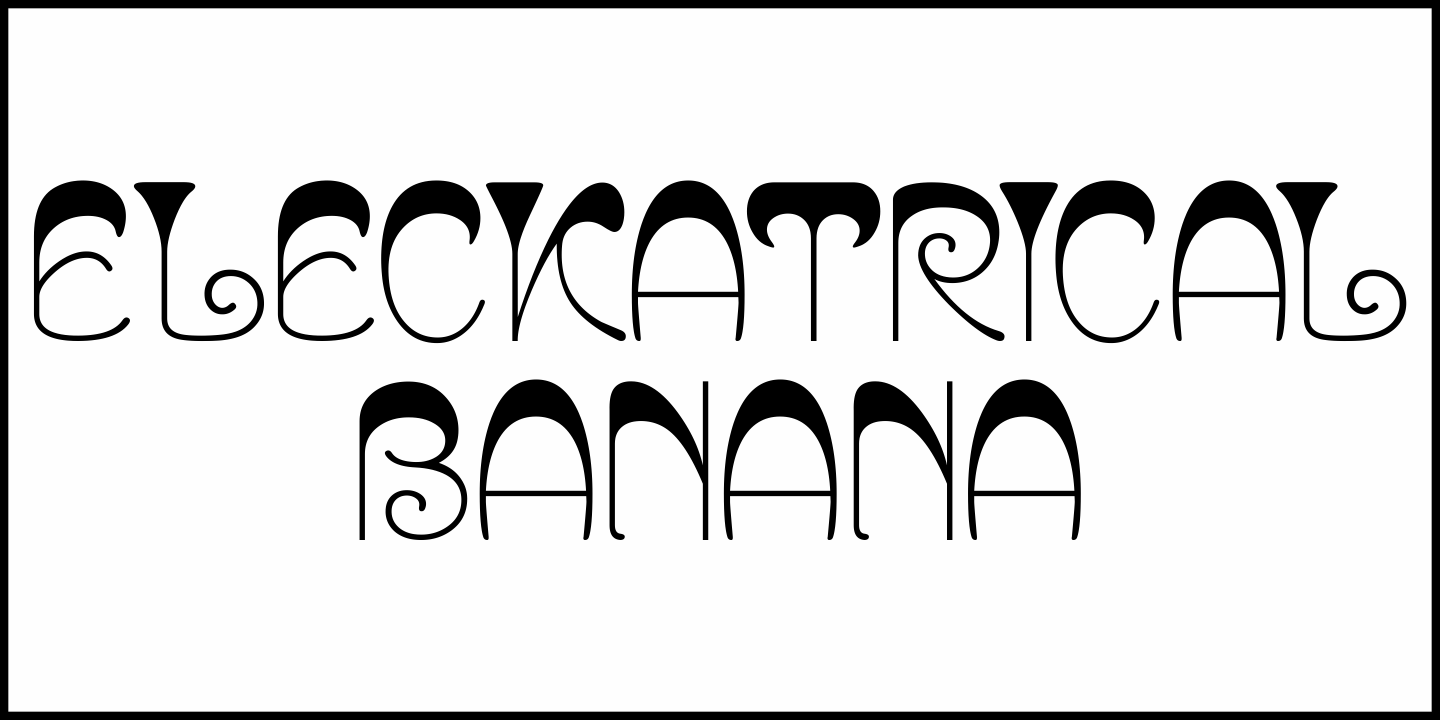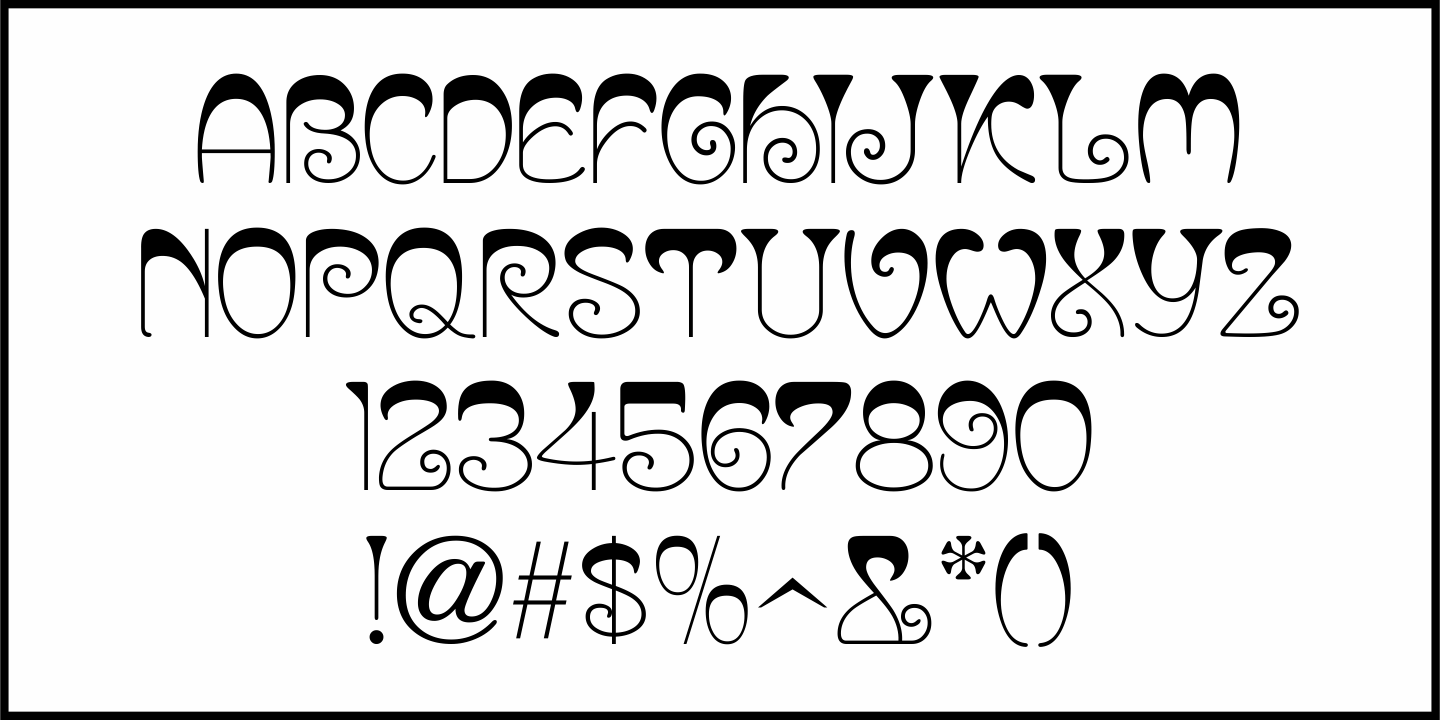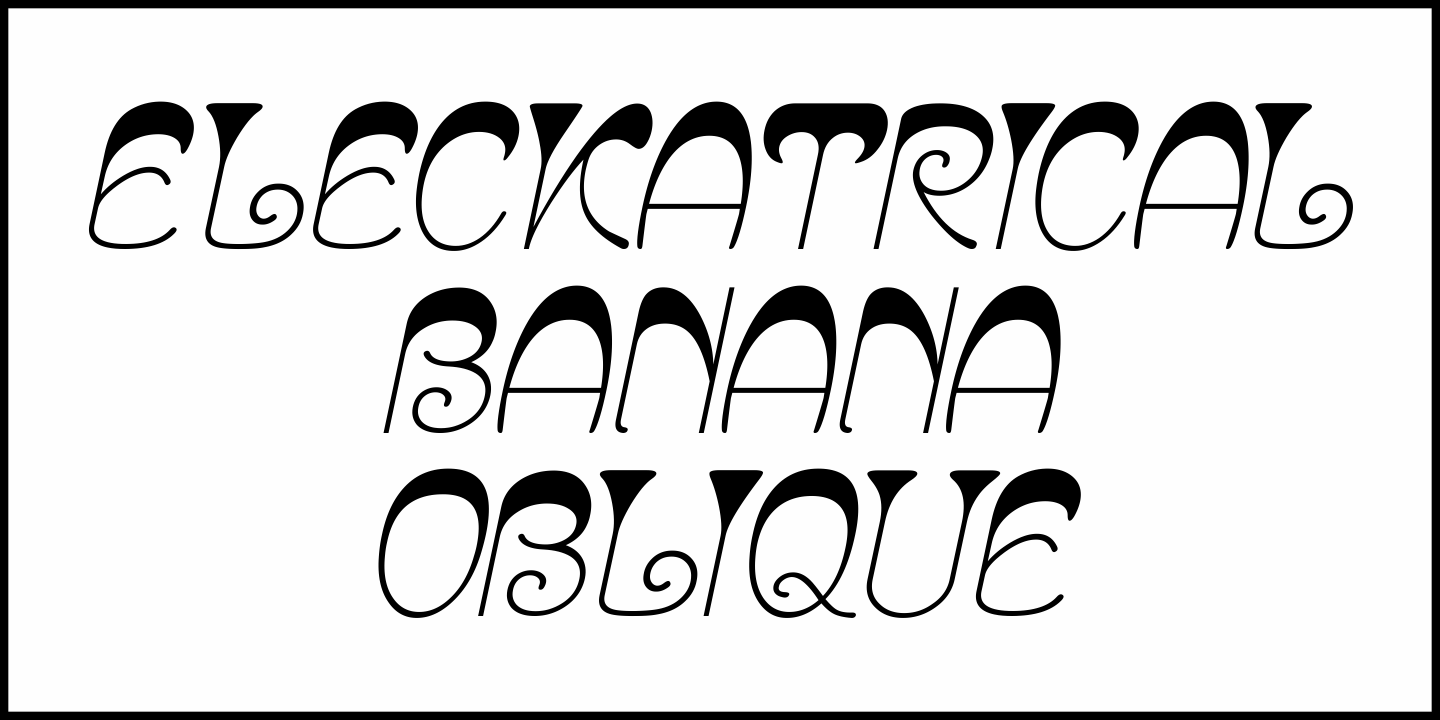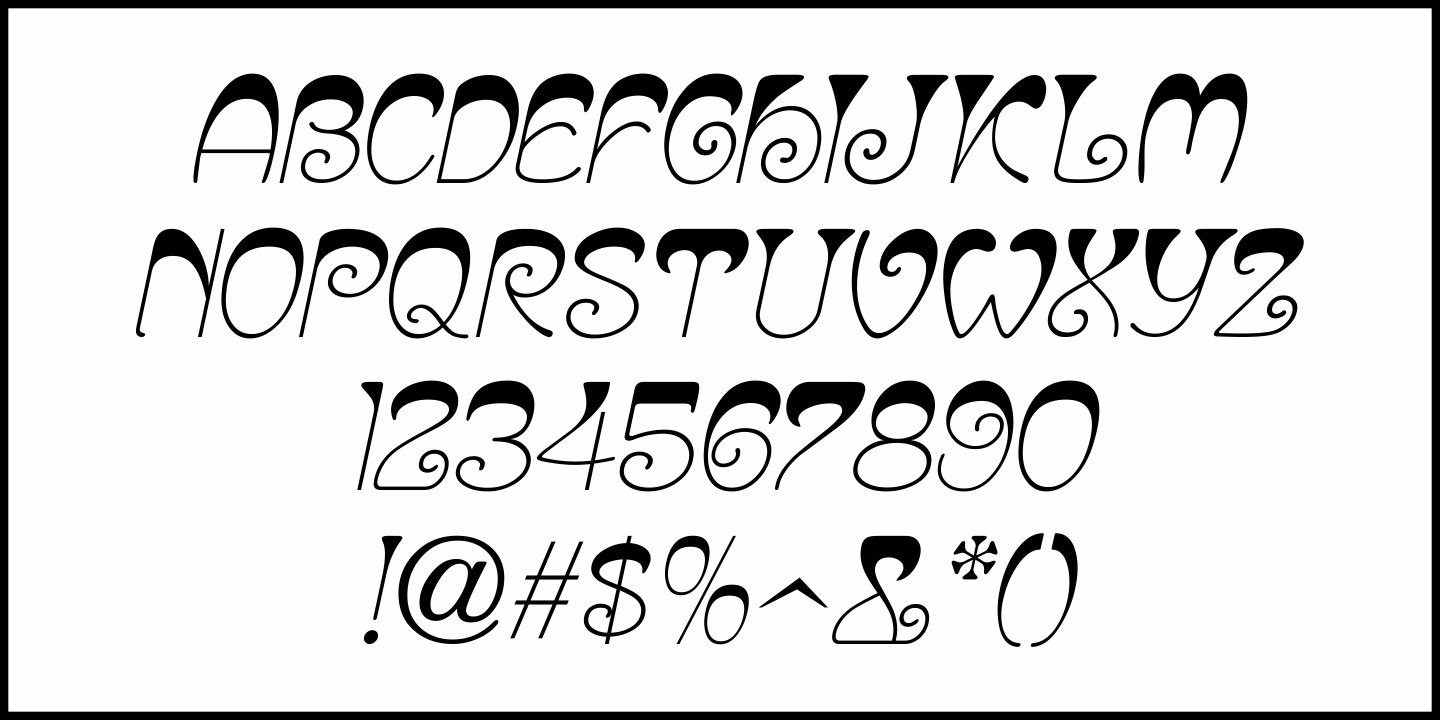
Eleckatrical Banana
From the same page of a vintage German lettering textbook entitled “50 Alphabete fur Technikur und Fachschulen” (loosely translated to “50 Alphabets for Technicians and Specialized Schools”) that inspired Trippy Hippy JNL comes Eleckatrical Banana JNL.
It’s another novelty, free form Art Nouveau hand lettered alphabet that works well in recreating 1920s period pieces or for designing a retro-inspired rock and roll concert poster reminiscent of the 1960s.
The name of the typeface is from a line in the 1966 pop hit “Mellow Yellow by Donovan (Leitch), and his extended pronunciation of ‘electrical’: “…E-lec-a-tric-cal’ banana is going to be the very next craze…”
Caps only Fonts.
Eleckatrical Banana JNL is available in both regular and oblique versions.